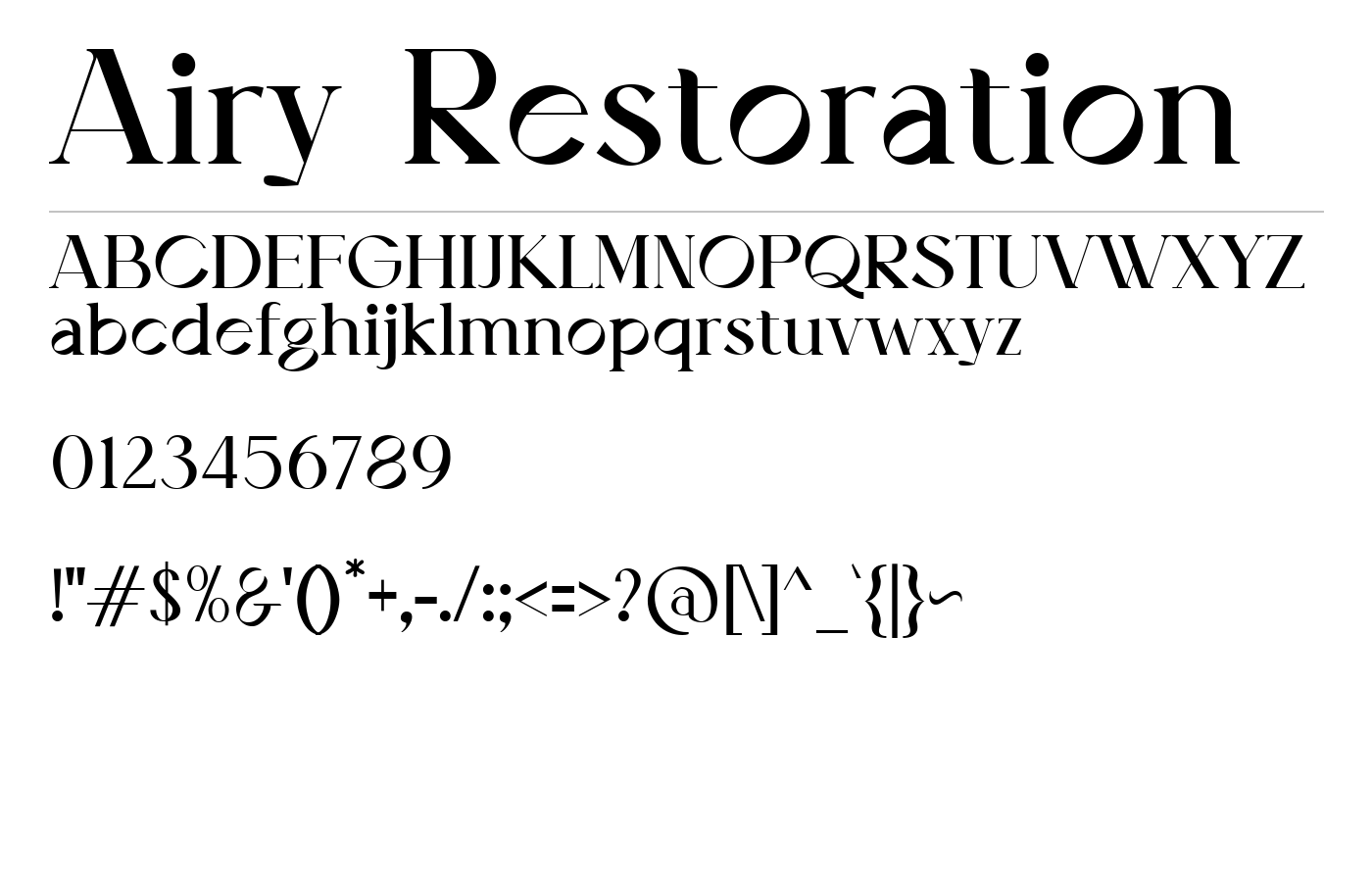
Airy Restoration is a modern serif font that combines elegance with a contemporary twist through its high contrast strokes and delicate, sharp serifs. Its slender letterforms and unique details, like the distinctive Q tail and single-story g, give it an airy, refined feel, making it perfect for upscale branding, editorial headlines, and stylish packaging. This font suits designs that seek a sophisticated yet fresh look, balancing classic luxury with modern minimalism.
Airy Restoration Font
About Airy Restoration Font
| Font family | Airy Restoration Font |
| Designer | Wildan Suprian Syah |